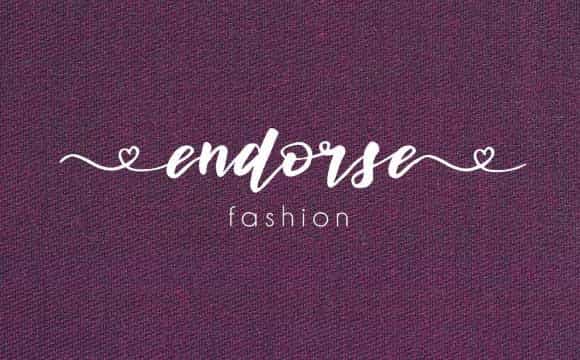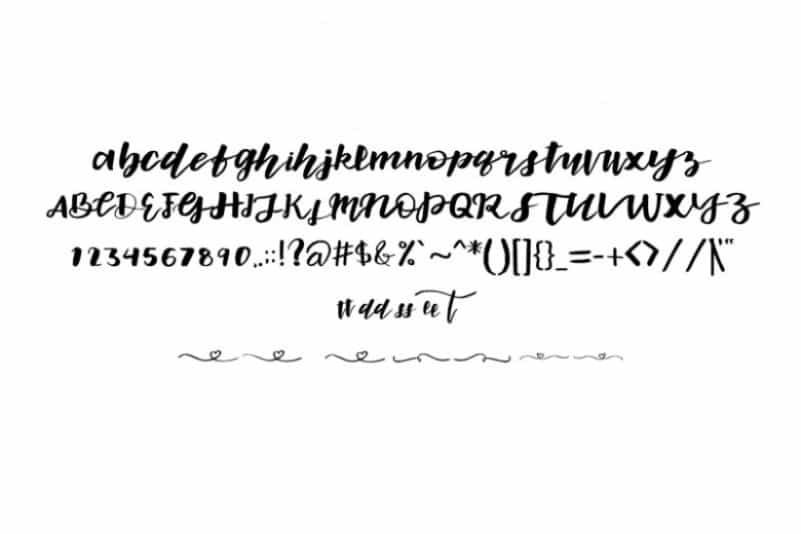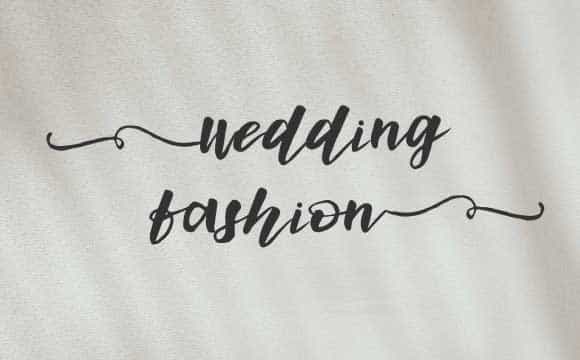
Endorse Font is a new handwritten stylish copperplate calligraphy fonts, which has both classic and modern typefaces combined into one. Endorse is the right choice for Apparel Brand, any greeting cards, Painting design style or any design that needs to have natural and personal touch. Combine and exchange the alternate characters to make a nice message in your design.